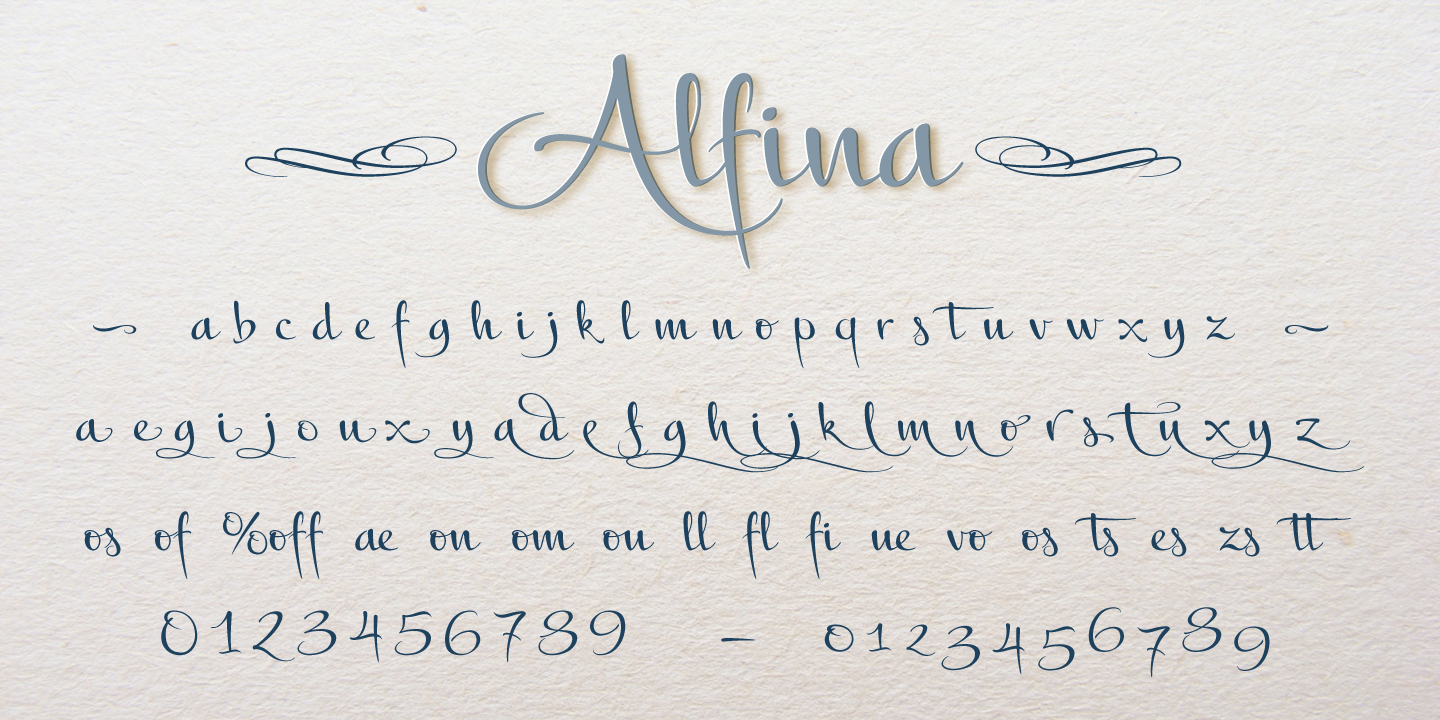
Alfina Font Free Download is a stylish and elegant script typeface that brings a handcrafted, sophisticated touch to your design projects. Perfect for wedding invitations, branding, logos, social media graphics, greeting cards, and product packaging, this font combines graceful curves with a modern calligraphy feel. Alfina Font adds warmth, beauty, and personality to any creative work that needs a refined, feminine aesthetic.
With Alfina Font Free Download, you’ll receive a complete set of uppercase, lowercase, numbers, and essential punctuation, giving you flexibility for both print and digital applications. Whether you’re creating a luxury logo, a personalized stationery set, or promotional materials, this font ensures readability while adding a romantic, handcrafted charm.
Enhance your creative projects with Alfina Font Free Download. Its elegant, flowing style makes it an essential choice for designs that aim to convey beauty, sophistication, and a personal touch.